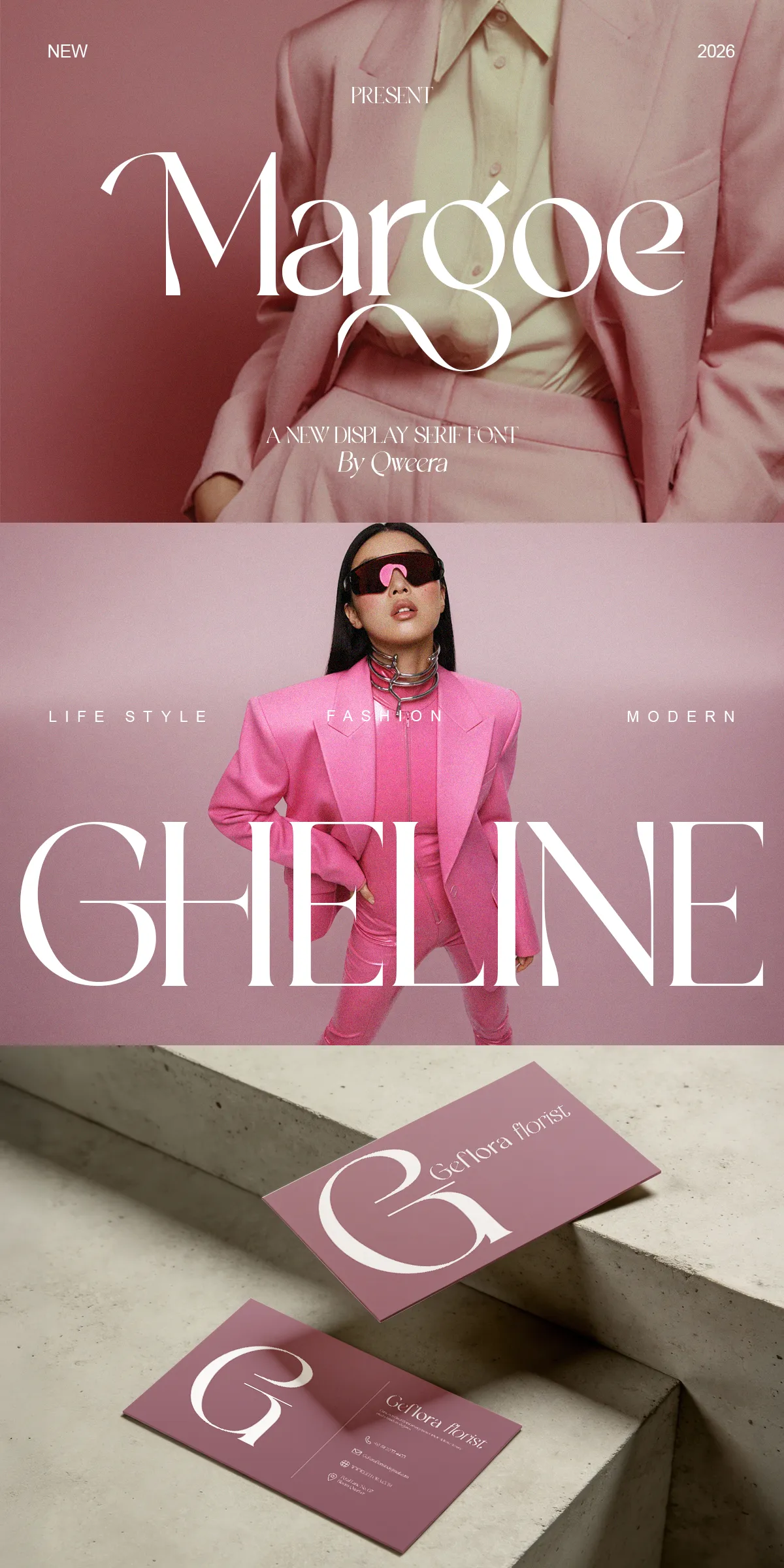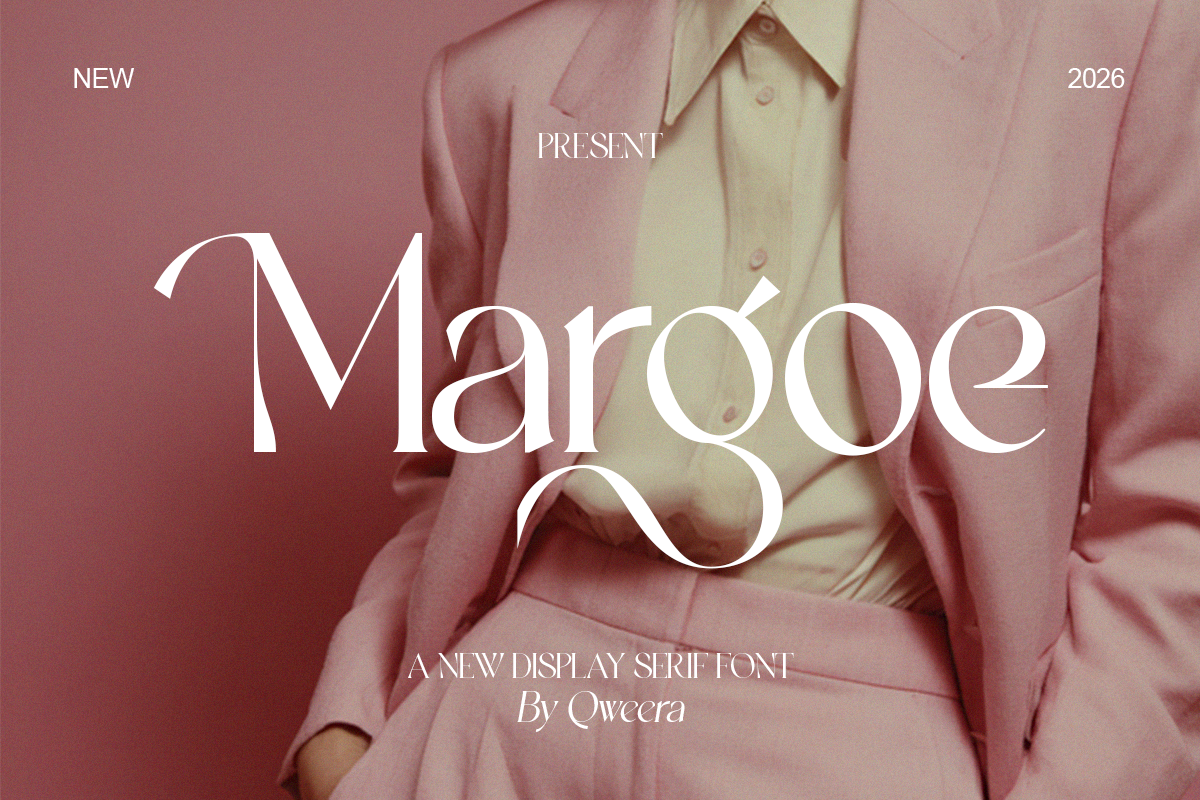
Margoe delivers a poised, contemporary serif voice that elevates premium brands and creative projects. Built with soft curves, measured contrast, and thoughtful ornamental details, Margoe articulates a modern interpretation of luxury. Designers choose Margoe to create polished identities that read as handcrafted yet fashion-forward. Whether you build boutique logos, wedding suites, high-end packaging, or striking editorial headlines, Margoe supplies the refined typographic foundation to communicate sophistication, warmth, and clarity.
Design Characteristics That Communicate Luxury And Modernity
Margoe combines classic serif proportions with subtle modern refinements. The letterforms feature smooth terminals and gentle stroke contrast that render beautifully at both display and heading sizes. Alternates and ligatures add expressive options for logotypes and wordmarks, while italic styles preserve rhythm and legibility for decorative use. Each glyph includes premium details—balanced counters, elegant serifs, and refined joins—that make the typeface feel intentional and upscale. Margoe actively enhances visual hierarchy and reinforces brand distinction through typographic nuance.
Key Features And Technical Specifications Of Margoe Typeface
- Complete uppercase and lowercase character sets for full typographic control
- Selectable alternates and ligatures to craft custom logotypes and headlines
- Multilingual support with extended diacritics for global branding
- PUA-encoded glyphs for easy access to stylistic characters
- Regular and italic styles included to maintain consistent voice across layouts
Primary Use Cases Where Margoe Excels For Immediate Impact
Margoe performs exceptionally across projects that require a premium, feminine, or editorial tone. Use Margoe to create boutique logos that communicate heritage and modernity in equal measure. For beauty and lifestyle brands, Margoe amplifies perceived value through graceful letterforms. On wedding stationery and invitations, its elegant curves and ligature details add emotional warmth and ceremony. In packaging applications, Margoe’s measured contrast and clear shapes scale well for labels and premium boxes. Editorial teams will find Margoe compelling for magazine titles, feature headlines, and art-directed spreads that demand a polished typographic voice.
Practical Implementation Tips To Maximize Visual Effect
Pair Margoe with a neutral sans-serif for body text to preserve readability while letting Margoe lead the hierarchy. Use larger sizes and generous tracking on headlines to showcase the serif’s sculpted details. Apply alternates selectively to customize brand wordmarks and avoid overusing decorative features in dense copy. For print, embrace high-quality paper and finishes—soft-touch laminates, letterpress, or subtle foil—to accentuate the font’s premium aesthetics. For web, serve WOFF/WOFF2 files, consider subsetting to lower load times, and define font-display strategies to avoid layout shifts.
Styling Suggestions And Pairings For Cohesive Visual Systems
Create balanced palettes using muted neutrals, soft metallics, or dusty pastels to complement Margoe’s refined tone. Combine Margoe with thin geometric sans-serifs or humanist sans fonts to achieve clean contrast. Introduce restrained ornamentation—fine rules, minimalist badges, or subtle monograms—that echoes Margoe’s ligatures and alternates. For logos, explore mixed-case treatments and delicate swash alternates to convey femininity and sophistication without sacrificing clarity.
Why Margoe Strengthens Brand Perception And Market Position
Margoe actively shapes how audiences perceive your brand. Its measured elegance signals quality, attention to detail, and contemporary taste. The typeface helps brands stand out in crowded retail and editorial environments by delivering a distinctive yet versatile voice. Margoe accelerates creative workflows by providing reliable typographic tools—alternates, PUA-encoded glyphs, and web-ready formats—so teams can execute cohesive identities across digital and physical touchpoints. Designers and brand strategists who use Margoe intentionally convey premium positioning with clarity and grace.